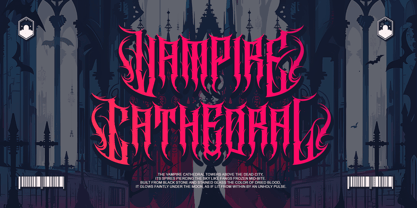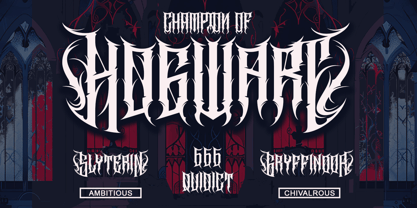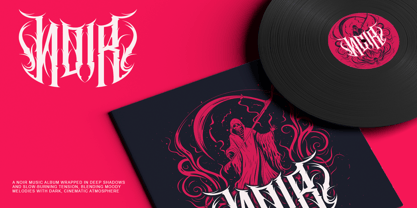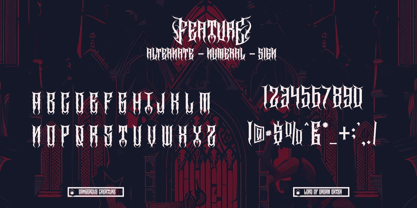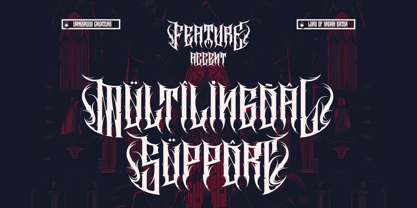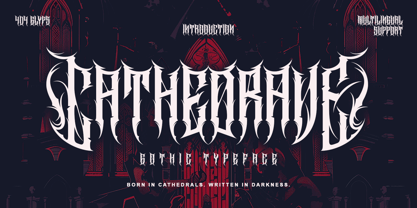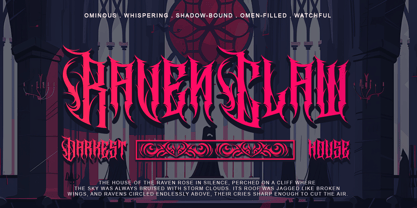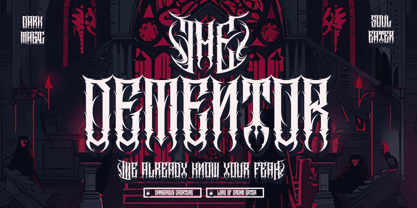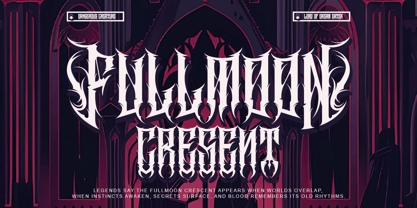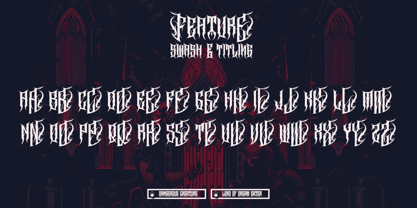
Cathedrave
by Letterara
Cathedrave is an extreme gothic blackletter font born from towering cathedrals, ancient stone carvings, and the shadows of forbidden manuscripts. With sharp, dramatic strokes, powerful symmetry, and heavy contrast, Cathedrave delivers a commanding presence that feels carved in stone rather than written on parchment. Designed for dark fantasy titles, metal band logos, album covers, game branding, tattoo designs, and cinematic visuals, this font embodies sacred darkness, ritual strength, and medieval authority. Every letter radiates intensity and reverence, transforming words into symbols of power. Let Cathedrave engrave your typography with cathedral-born darkness—where faith, shadow, and form unite.